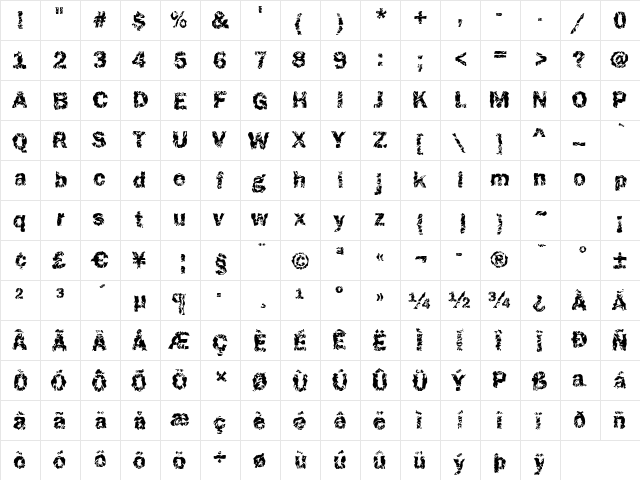
Funky37 Bold
Design Context for Funky37 Typeface
Funky37 trades formality for fun, with bouncy, characterful letterforms that bring warmth and energy to any project.
Font Pairing: Pairs well with a rounded or humanist sans for body copy, maintaining the friendly tone without relying on Funky37 to carry extended reading.
Pro Tip: Avoid using Funky37 for long passages of text — it works best for headlines, labels, and short calls to action.